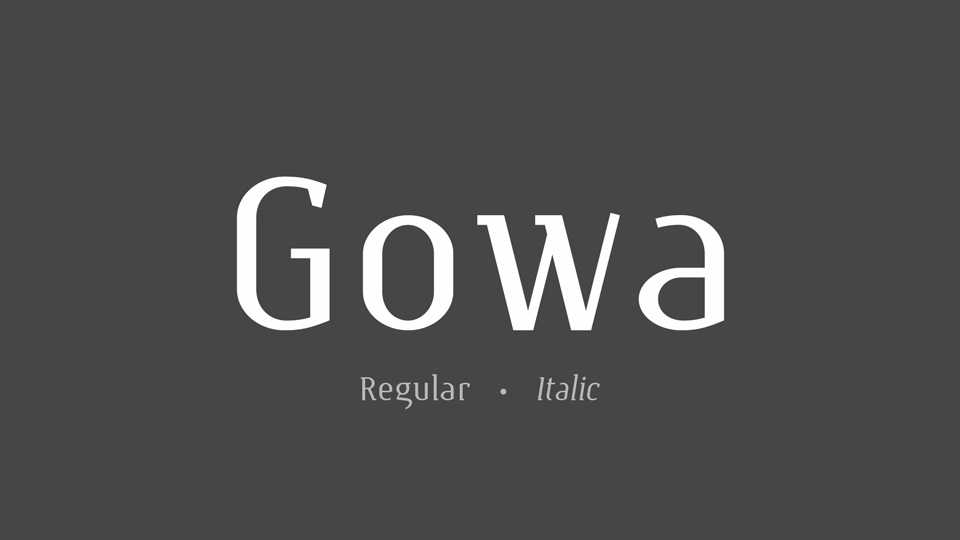
Download Gowa typeface, a serif font family in Regular and Italic styles designed with Science Fiction genre in mind. Gowa comes in Regular and Italic styles, supports Latin, Greek and Cyrillic languages.
Designer: T. Christopher White